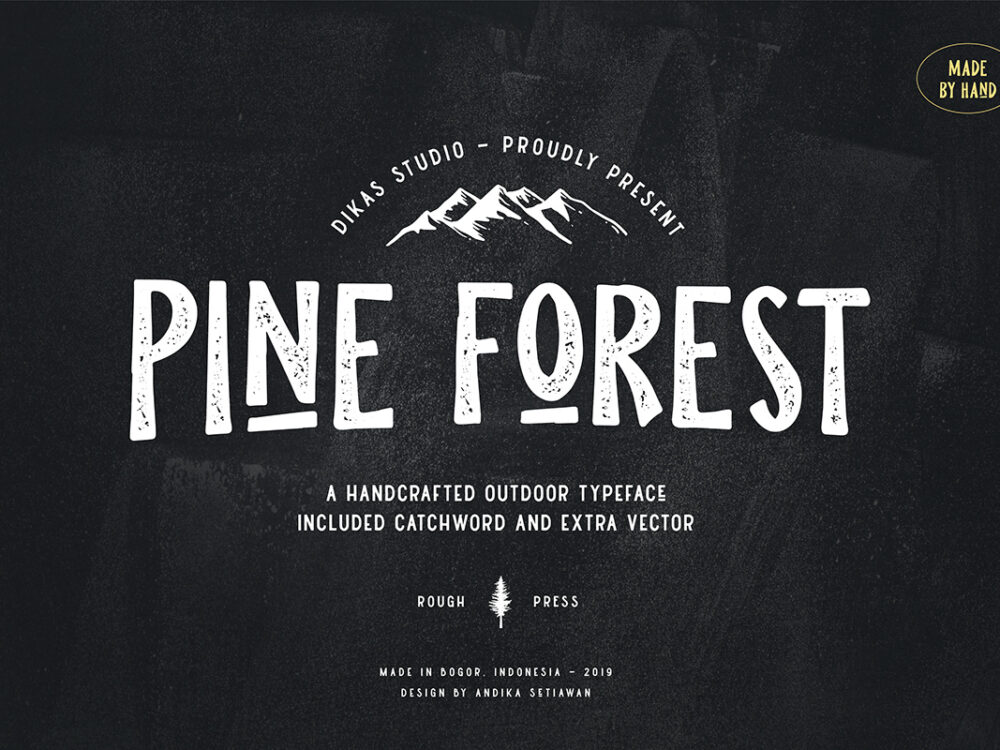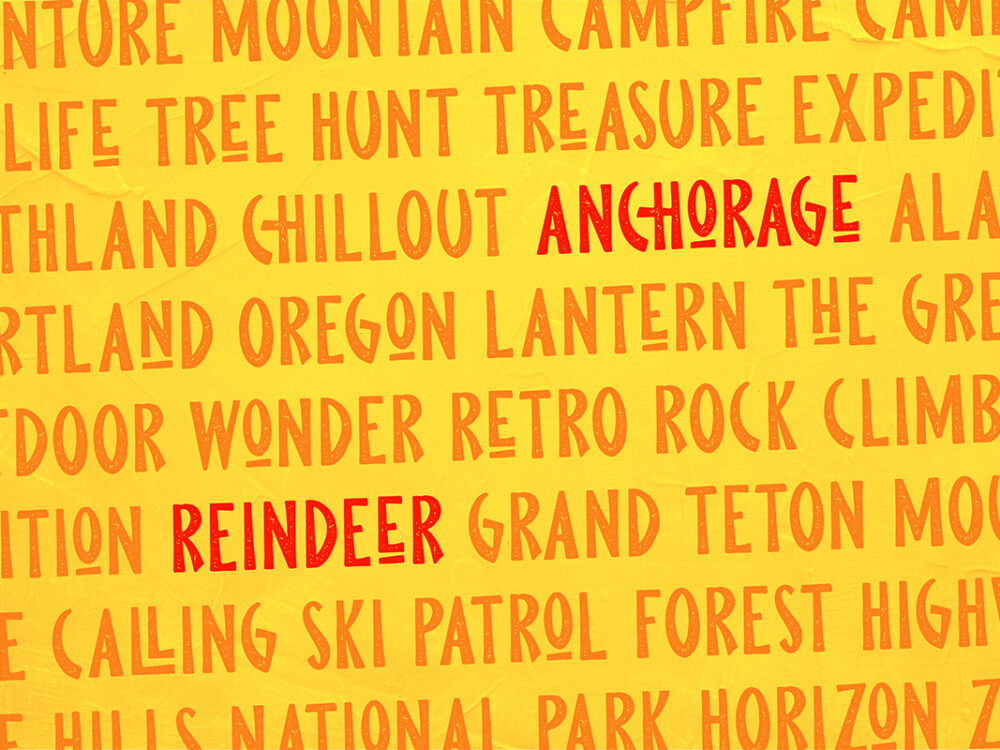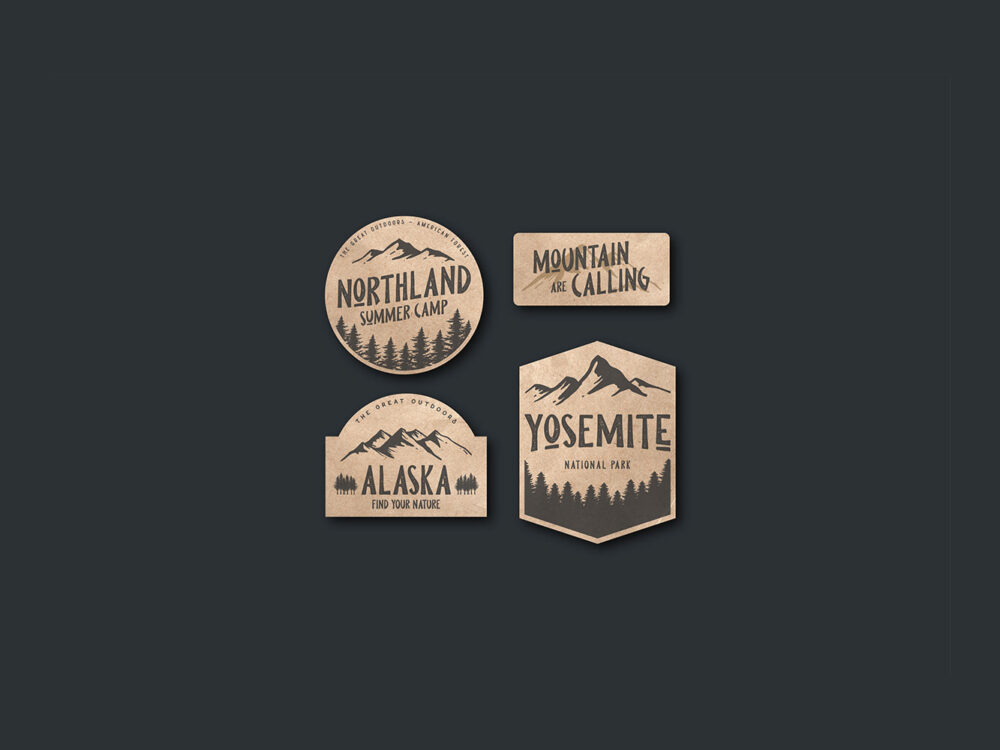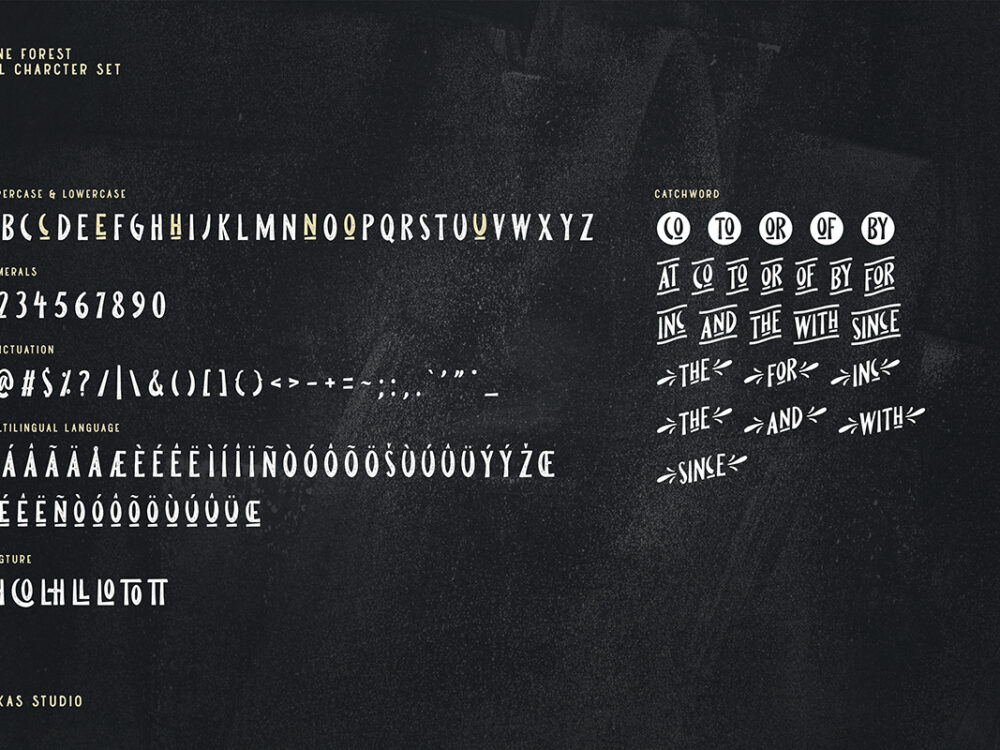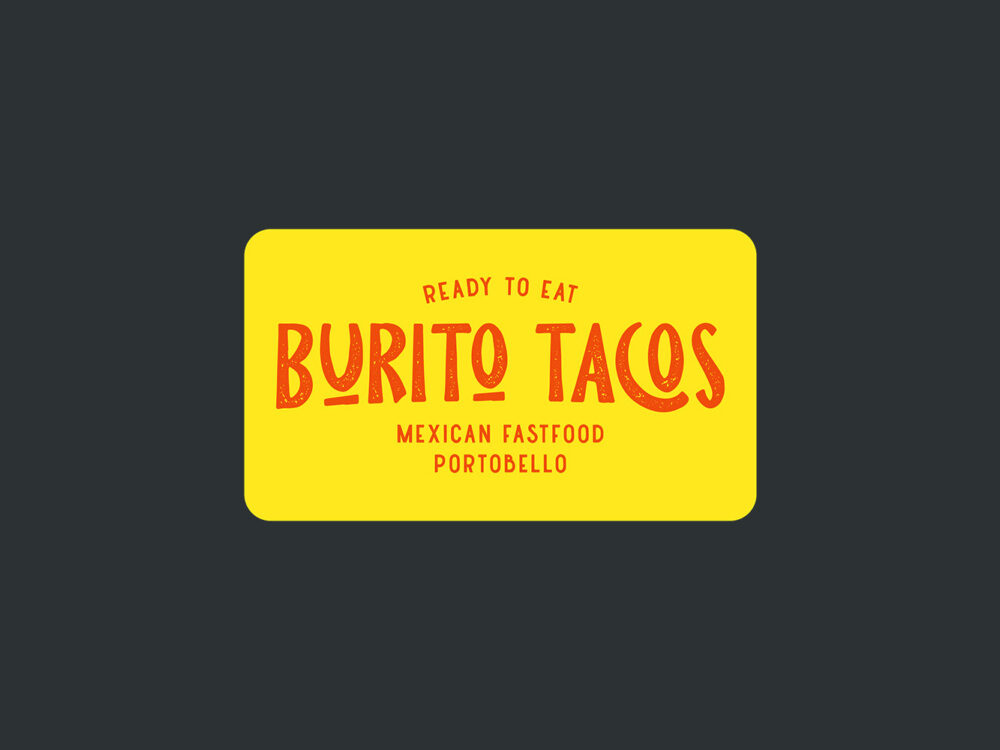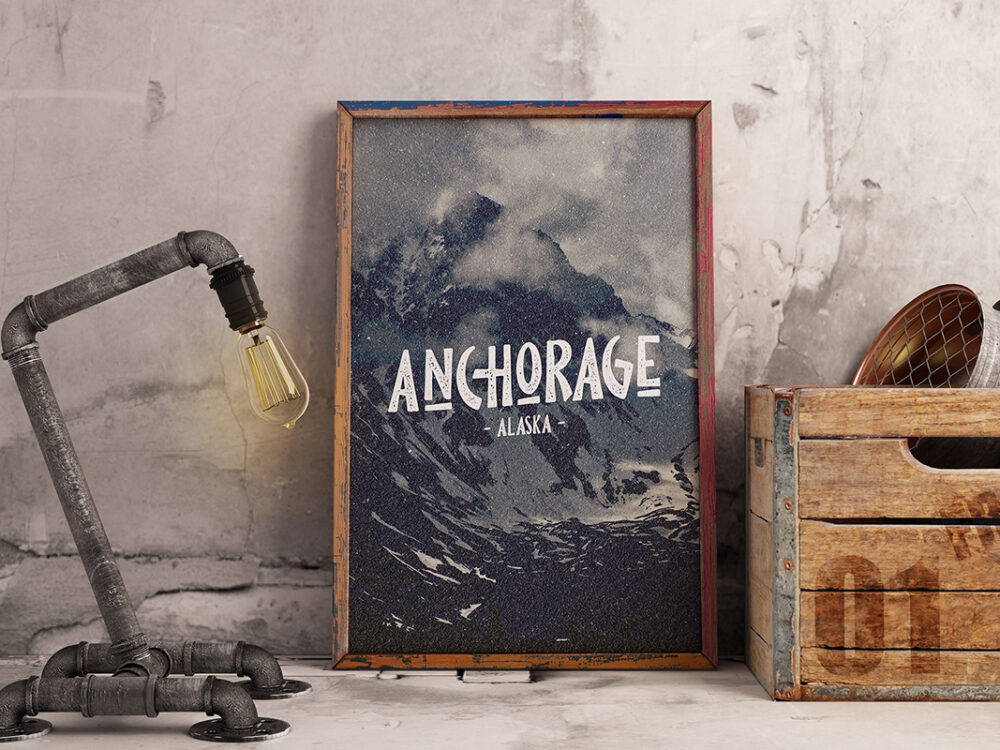
Pine Forest Outdoor Typeface
Free Rough Font
Pine Forest Outdoor Typeface
Pine Forest Outdoor Toupefike is a beautiful typeface inspired by outdoor activities. Each letter and symbol is hand-drawn and has lightness and airiness. This font includes two styles – rough and press. You can use this font for branding, logo designs, product packaging, invitations, and more. If you wish to use it for commercial work, you can buy the full version.